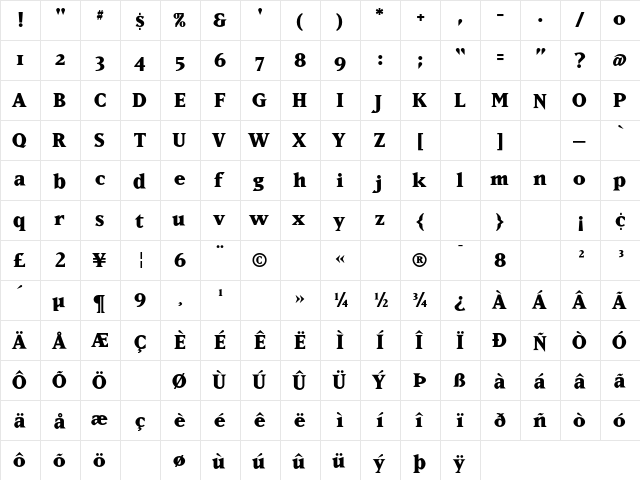
Matrix-ExtraBold Extra Bold
Design Context for Matrix-ExtraBold Typeface
Matrix-ExtraBold offers clean, dependable letterforms without strong stylistic allegiance, making it a practical choice for designers who need flexibility. Its bold stroke weight gives it real presence on the page.
Pro Tip: Use Matrix-ExtraBold in both headline and body roles to test its range before committing to a single application.